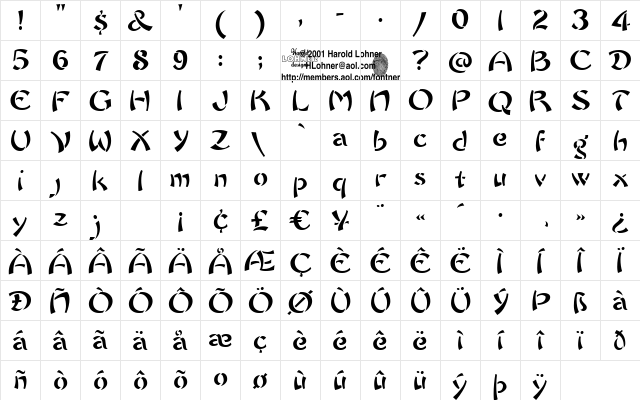
Chow Fun Regular
Design Context for Chow Fun
Chow Fun has an approachable, lighthearted character - its loose, expressive forms are well-suited to children's content, casual branding, and fun-first design.
Font Pairing: Pairs well with a rounded or humanist sans for body copy, maintaining the friendly tone without relying on Chow Fun to carry extended reading.
Pro Tip: Use Chow Fun at larger display sizes where its expressive character can land. Pair with a clean, simple sans for body copy to maintain readability.